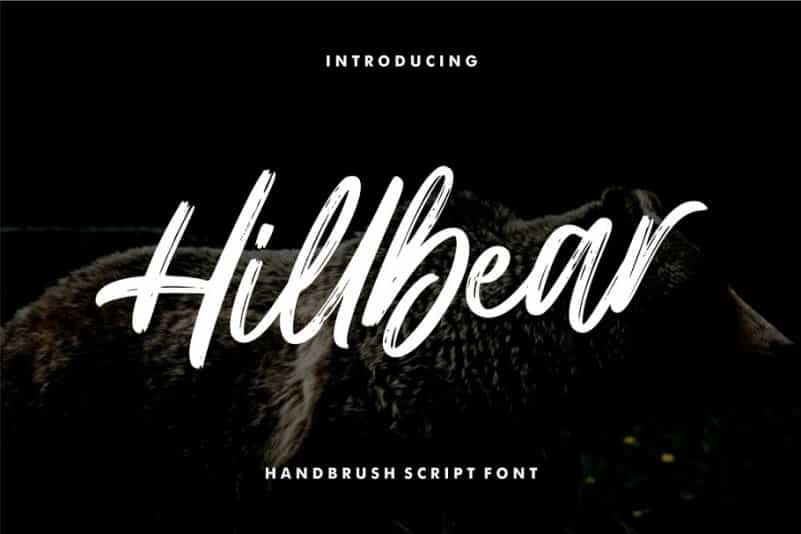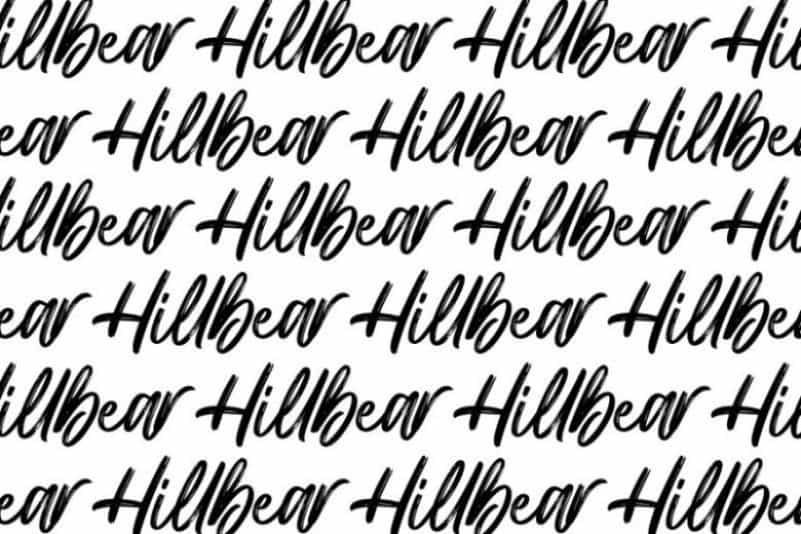
Hillbear Font is a unique handwritten brush script font that is stylish and carefree while being meticulously handcrafted with lots of love for any beautiful project. Hillbear Brush is a font script with brush stroke style with high quality font design is applied here. It is very important for creation of this font since we incorporate casual, elegance, and artistry.